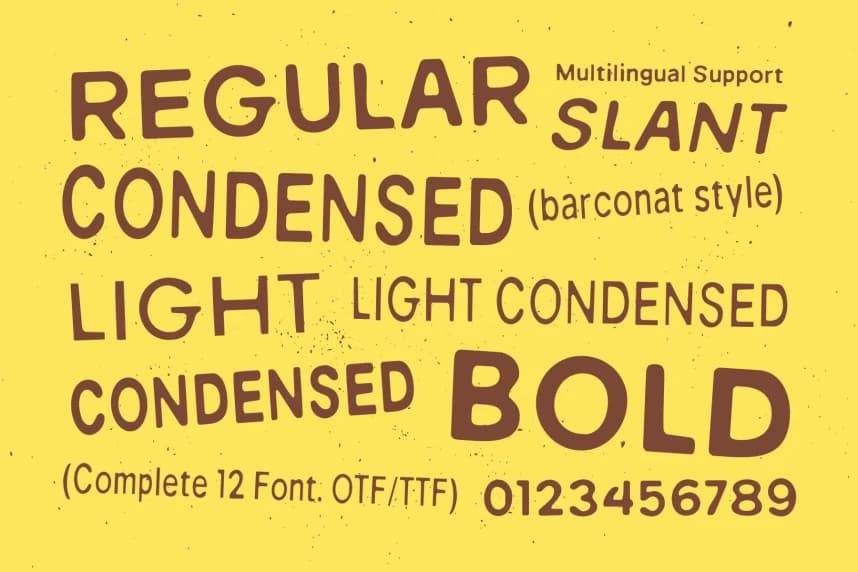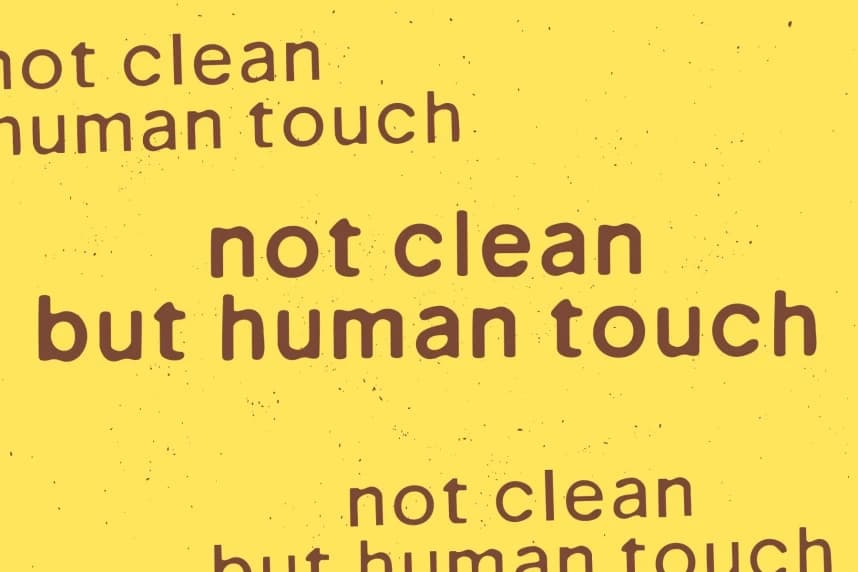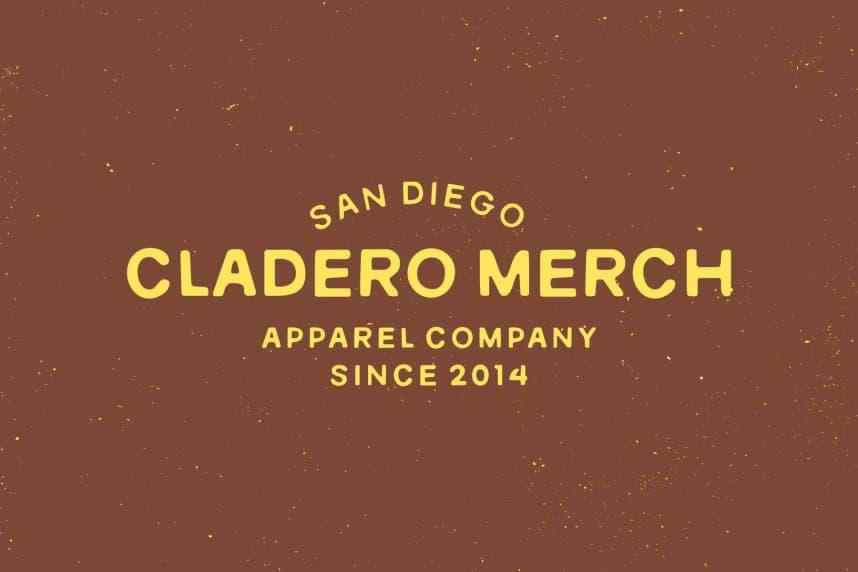
Barconat Font
Barconat Font - Rough Sans Serif, a versatile font that effortlessly combines a vintage charm with a modern twist. This condensed sans serif typeface features a unique blend of rough textures and smooth edges, making it an ideal choice for various design projects.